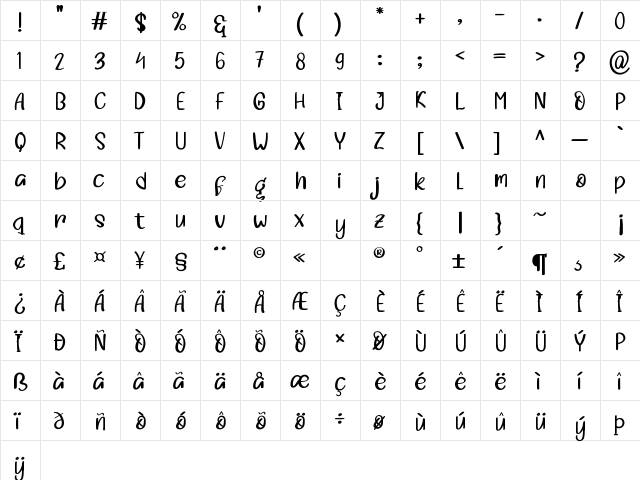
Aragel Regular
Aragel offers clean, dependable letterforms without strong stylistic allegiance, making it a practical choice for designers who need flexibility.